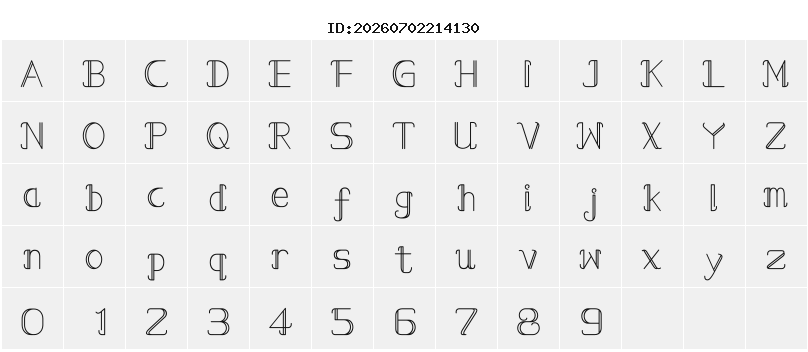
A017-Sounso Ocean Preview
• Font Name: A017-Sounso Ocean
• Full Font Name: A017-Sounso Ocean
About A017-Sounso Ocean.ttf
A017-Sounso Ocean.ttf is a modern, elegant sans-serif font designed for ultimate readability and visual harmony. Perfect for branding, headlines, web design, and print materials.